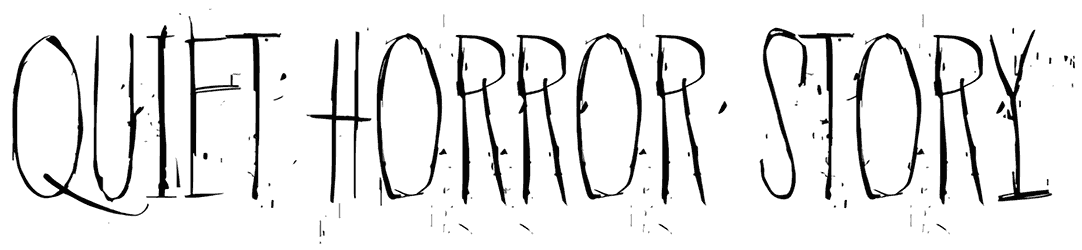
Quiet Horror Story Font
The Quiet Horror Story is a horror font, as its name reveals, that has a minimal style. When you look at this emo font, its creepy style seems entertaining.
Thus, you may use the Quiet Horror Story for various cases, such as posters, flyers, and prints on T-shirts; however, it does not support lowercase letters. This font’s letters are constructed by thin lines with a texture, making them memorable to the viewers, so give it a try now.